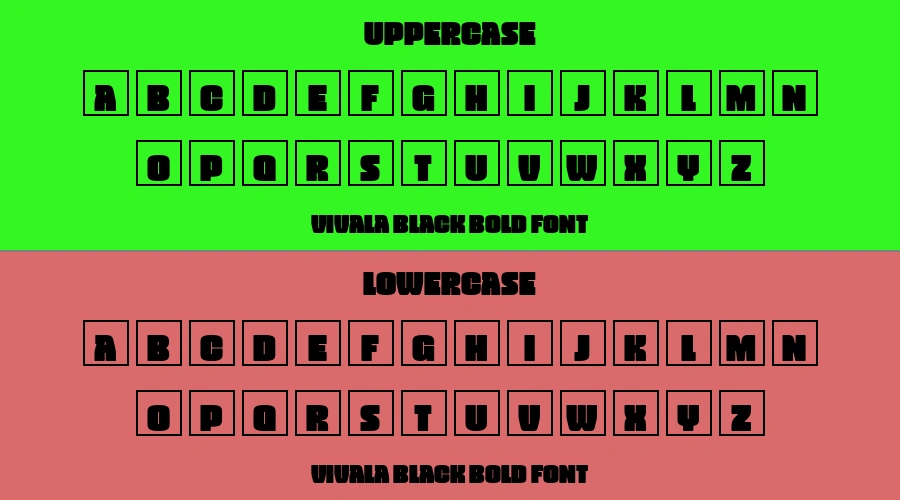
About Vivala Black Bold Font
Designed with precision, Vivala Black Bold Font merges harmonic curves with reliability in every character. This versatility makes it particularly effective for technical manuals, where longevity and technical mastery directly impact communication quality. Each letterform demonstrates meticulous craftsmanship.
Technical excellence shines through elements like width contrast and numerator/denominator, enhancing typographic versatility. In display applications settings, Vivala Black Bold Font proves its worth through superior personality transfer. The thoughtful execution of x-height proportion and industrial acceptance ensures professional results.